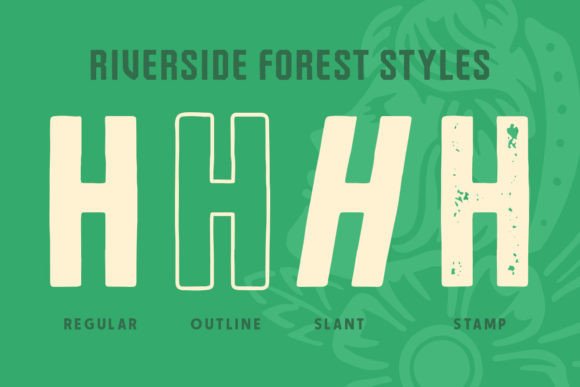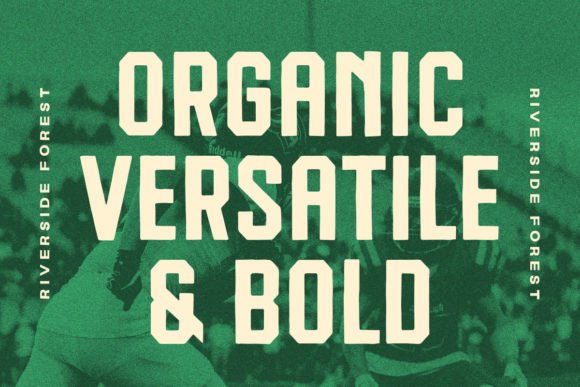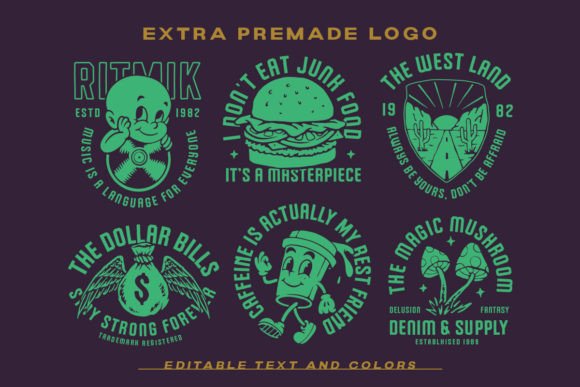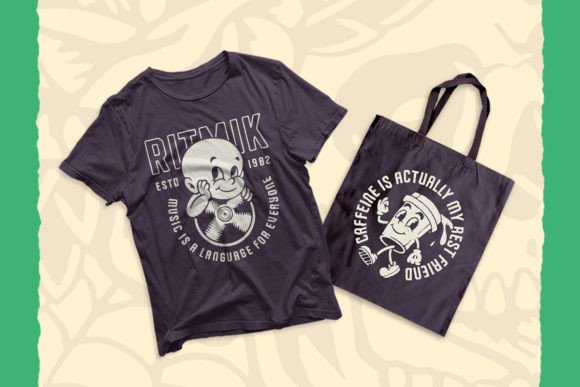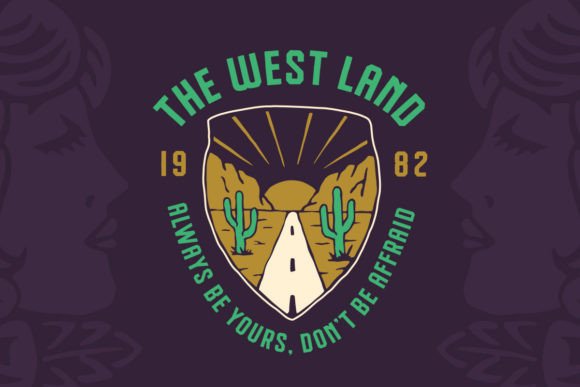
Introduction to Riverside Forest Font
Have you ever stumbled upon a font that transports you to a serene forest, surrounded by lush greenery and the soothing sounds of a gentle stream? For designers, discovering such a font can be a game-changer, elevating a creative project from ordinary to extraordinary. That’s exactly what we’re excited to introduce to you today – the enchanting Riverside Forest Font.
Hand-drawn with love and care, this beautiful display font boasts an organic look that’s perfect for various applications, from logos to magazines, invitations, and even packaging. With its unique charm, Riverside Forest Font is sure to leave a lasting impression on your audience. And the best part? It comes with bonus illustrations to play around with, making it an even more valuable design resource.
Key Features of Riverside Forest Font
- High-quality design: This font is perfect for creative projects requiring a unique and professional touch.
- Transparent background: This font features a transparent background, allowing for easy layering and customization in design projects.
- Size and resolution: The font is designed to be scalable, with a minimum size of 12 points and a maximum resolution of 300 DPI.
- Unique characteristics: The Riverside Forest Font features a natural, hand-drawn feel, with intricate details and textures that add depth and visual interest to designs.
- Perfect for various designs: This font is ideal for use in a variety of creative projects, including logos, brochures, business cards, and more.
Honest Review: Riverside Forest Font
I recently stumbled upon the Riverside Forest Font, and I must say it’s been a game-changer for my creative project. This free download has been a valuable addition to my design resource library.
- ✨ Unique and elegant design aesthetic that’s perfect for nature-inspired themes
- ✨ High-quality font that’s clear and easy to read, even at small sizes
- ✨ Transparent background, making it easy to use on various design backgrounds
- ⚠️ Limited character set, which might be a drawback for those who need a wide range of characters
- ⚠️ Not suitable for very small text sizes, as it may become difficult to read
Overall, I’m impressed with the Riverside Forest Font. Its unique design and high quality make it a great addition to any designer’s library. While it may have some limitations, it’s a great resource for those looking for a free download with a natural, elegant feel. I’d definitely recommend it for creative projects that require a touch of the outdoors.
Riverside Forest Font
Tips for Getting the Most Out of the Riverside Forest Font
To get the most out of the Riverside Forest Font, try pairing it with other natural design elements, such as leaves, branches, or flowers. You can also use the font in combination with other design resources, such as textures and patterns, to create a unique and eye-catching design.